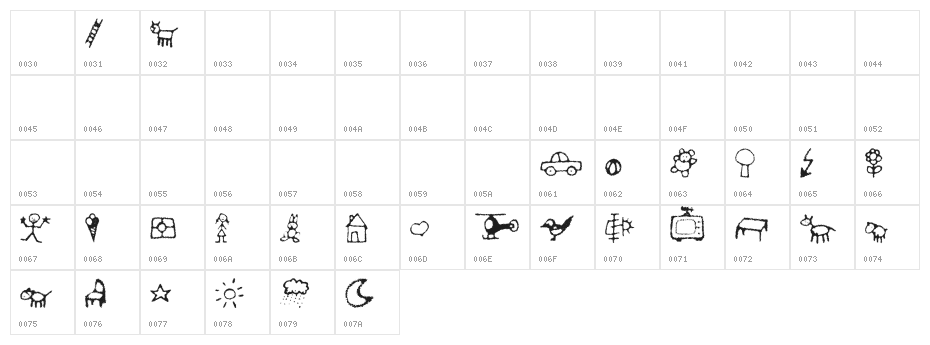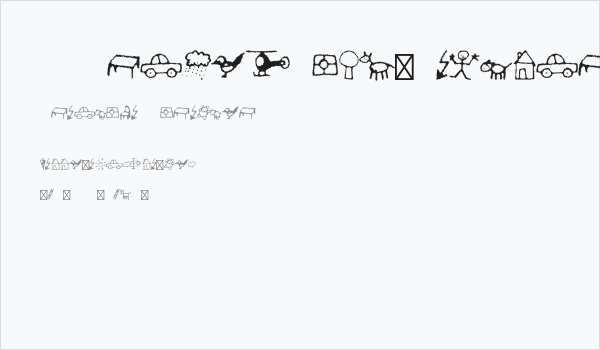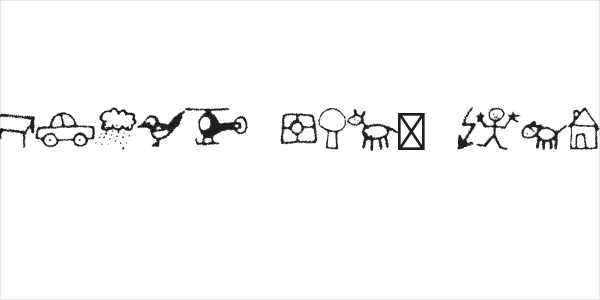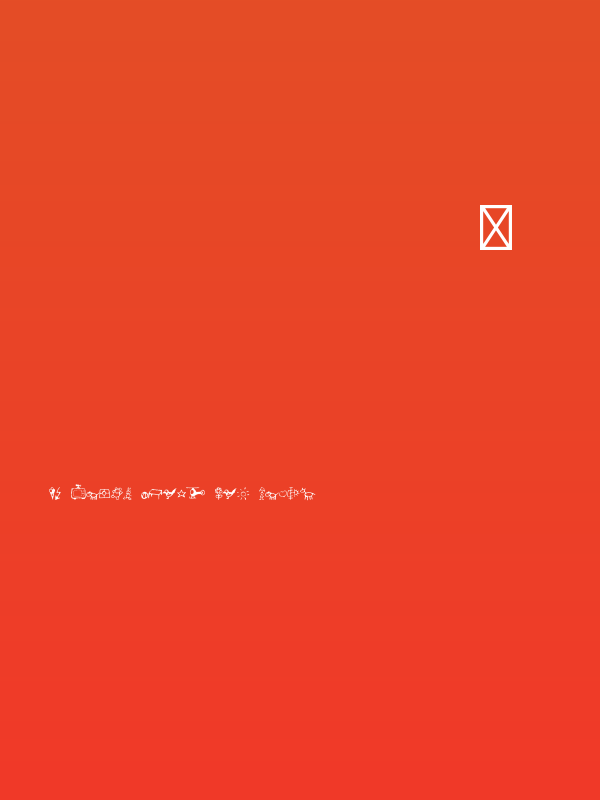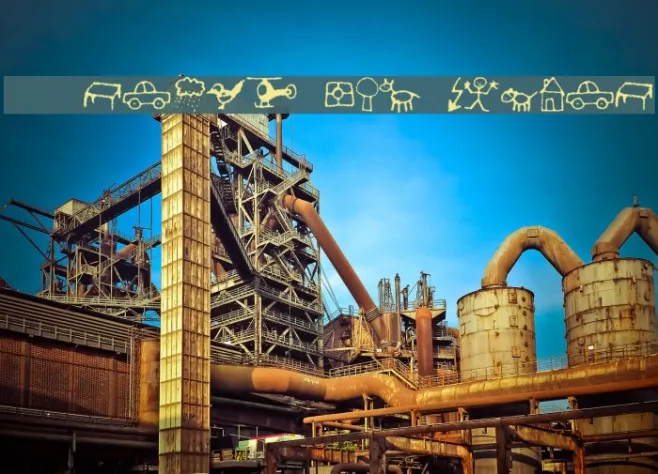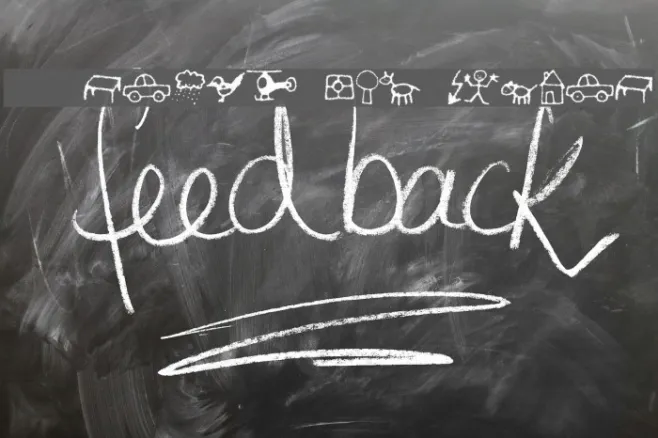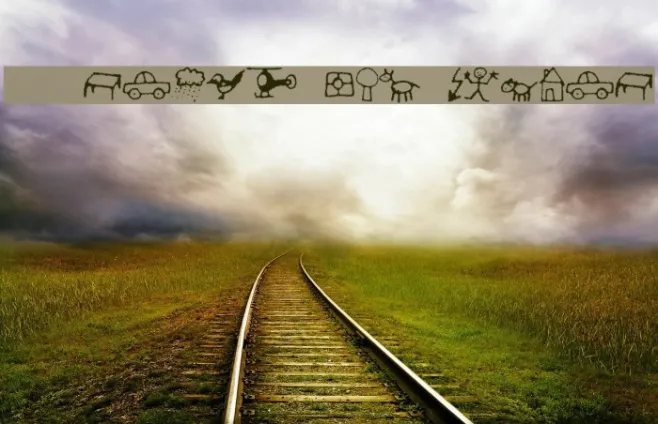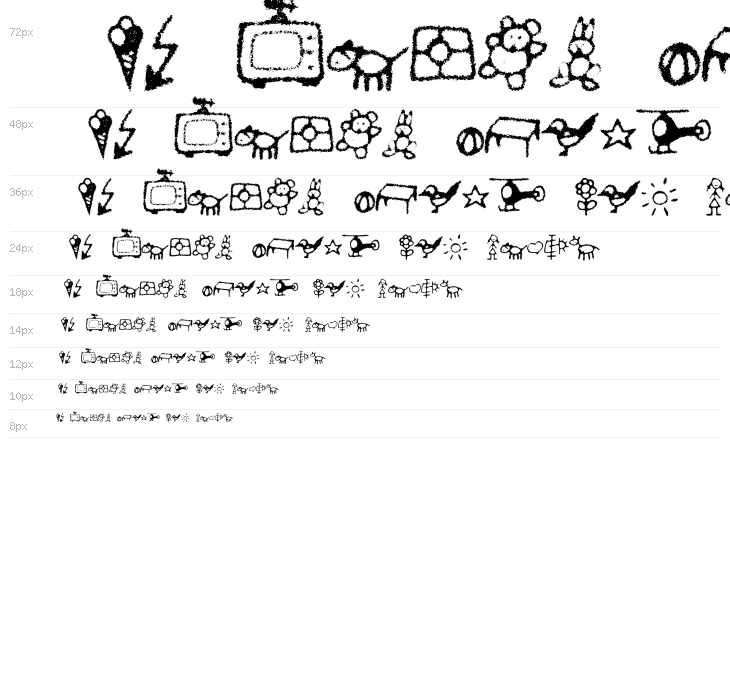
FECrayonKids-Regular Font
FECrayonKids-Regular Description
This playful and whimsical font features a series of hand-drawn doodles that resemble children's crayon drawings. Each character is represented by a unique illustration, such as cars, animals, flowers, and other charming motifs. The style is reminiscent of a child's art, with a rough, textured appearance that adds to its charm. The font is not meant for traditional text but rather for decorative purposes, bringing a sense of fun and creativity to any project. Its informal and casual design makes it ideal for projects aimed at children or those seeking a lighthearted aesthetic.
| Overall Style | Playful, Whimsical, Childlike |
| Use Case | Decorative elements, Children's projects, Creative designs |
| Proposed Projects | Ideal for children's books, playful invitations, educational materials, or any project requiring a whimsical touch. |